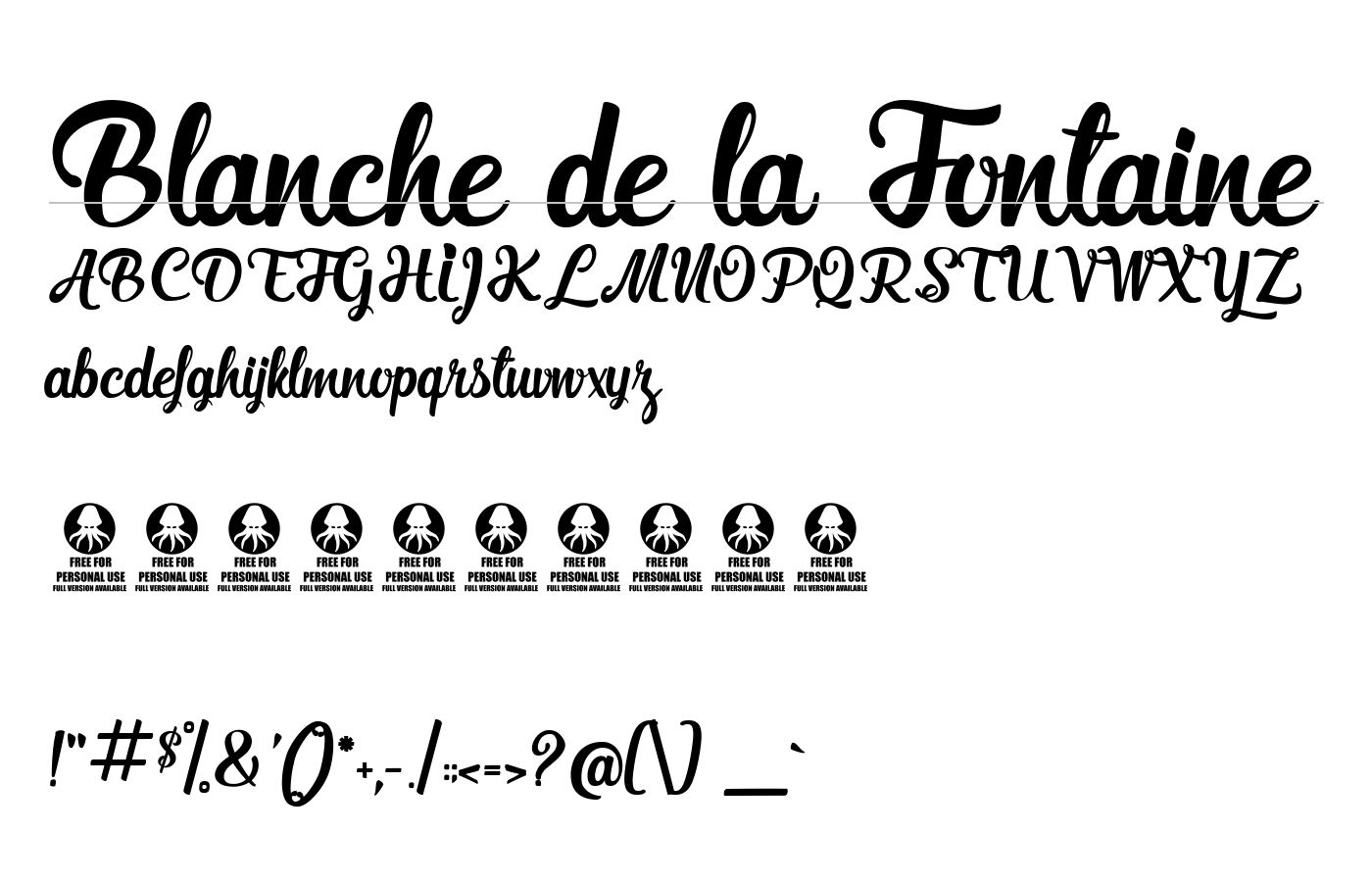
Blanche de la Fontaine is a charming script font with a lively and elegant personality, featuring smooth, flowing strokes that convey a handcrafted, vintage feel. Its medium weight and balanced contrast make it perfect for stylish branding, invitations, and headlines where a touch of warmth and personality is desired. This font works especially well in fashion, lifestyle, and creative projects seeking a sophisticated yet approachable look.